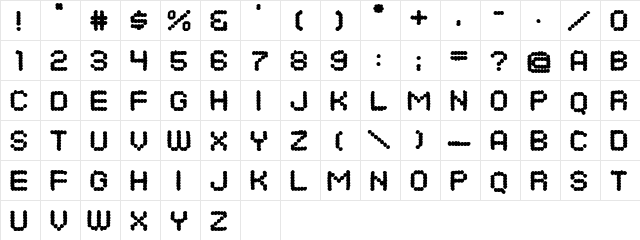
Dots All For Now Dirty JL Regular
Design Context for Dots All For Now Dirty JL Typeface
Dots All For Now Dirty JL celebrates the constraints of early digital type, turning pixel geometry into a distinctive and immediately recognisable style.
A natural choice for retro game titles, chiptune music branding, 8-bit UI, and digital nostalgia projects.
Pro Tip: Pair Dots All For Now Dirty JL with flat colour palettes and simple geometric UI elements to reinforce its digital aesthetic.